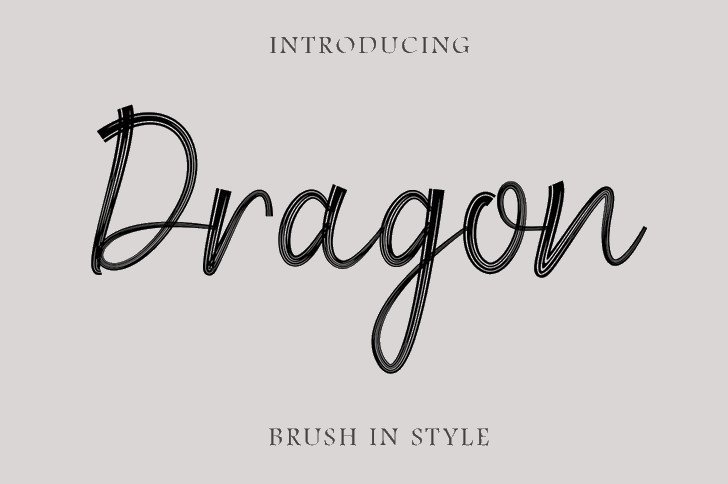
Dragon Modern Brush Font
Dragon Modern Brush Font with a calligraphy style, So beautiful on invitation like greeting cards, branding materials, business cards, quotes, posters, and more!